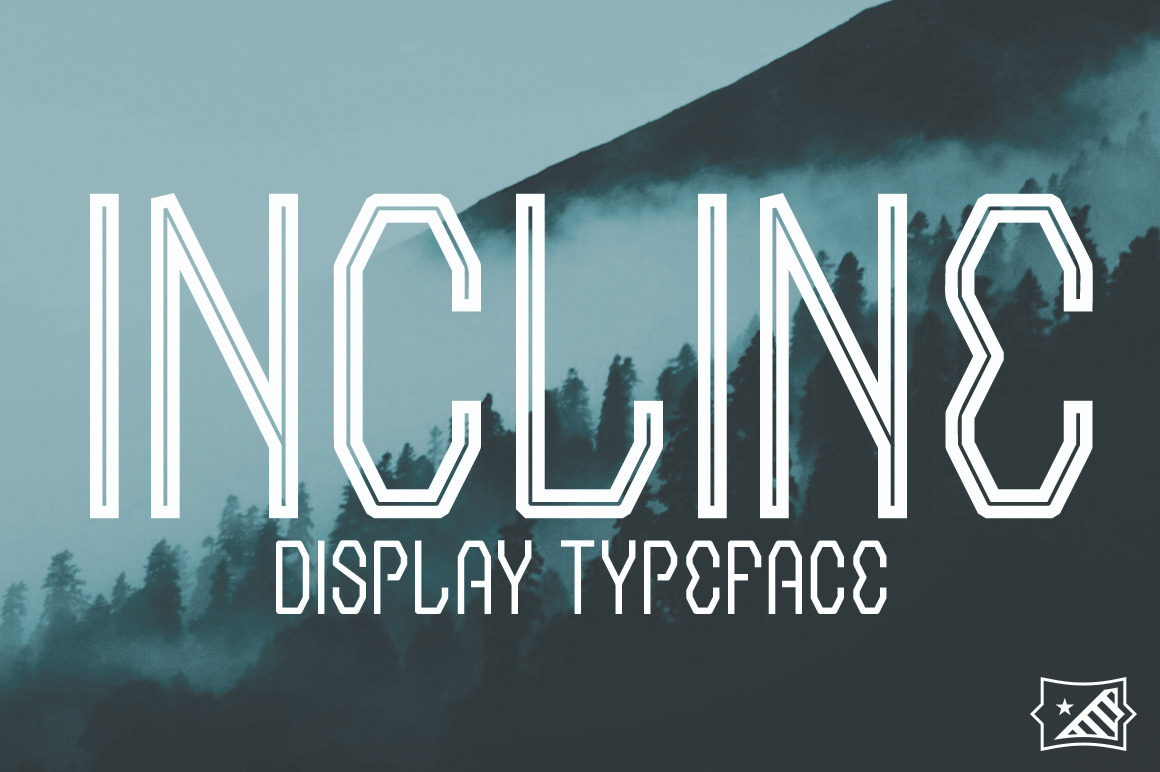
AE Incline - Display Typeface
AE Incline is a modern, rigid typeface with 3 weights included. Also in this set, two inline versions for that extra "pop" your clients are asking for.
This is a typeface unlike any other. Climb the hill with AE Incline.